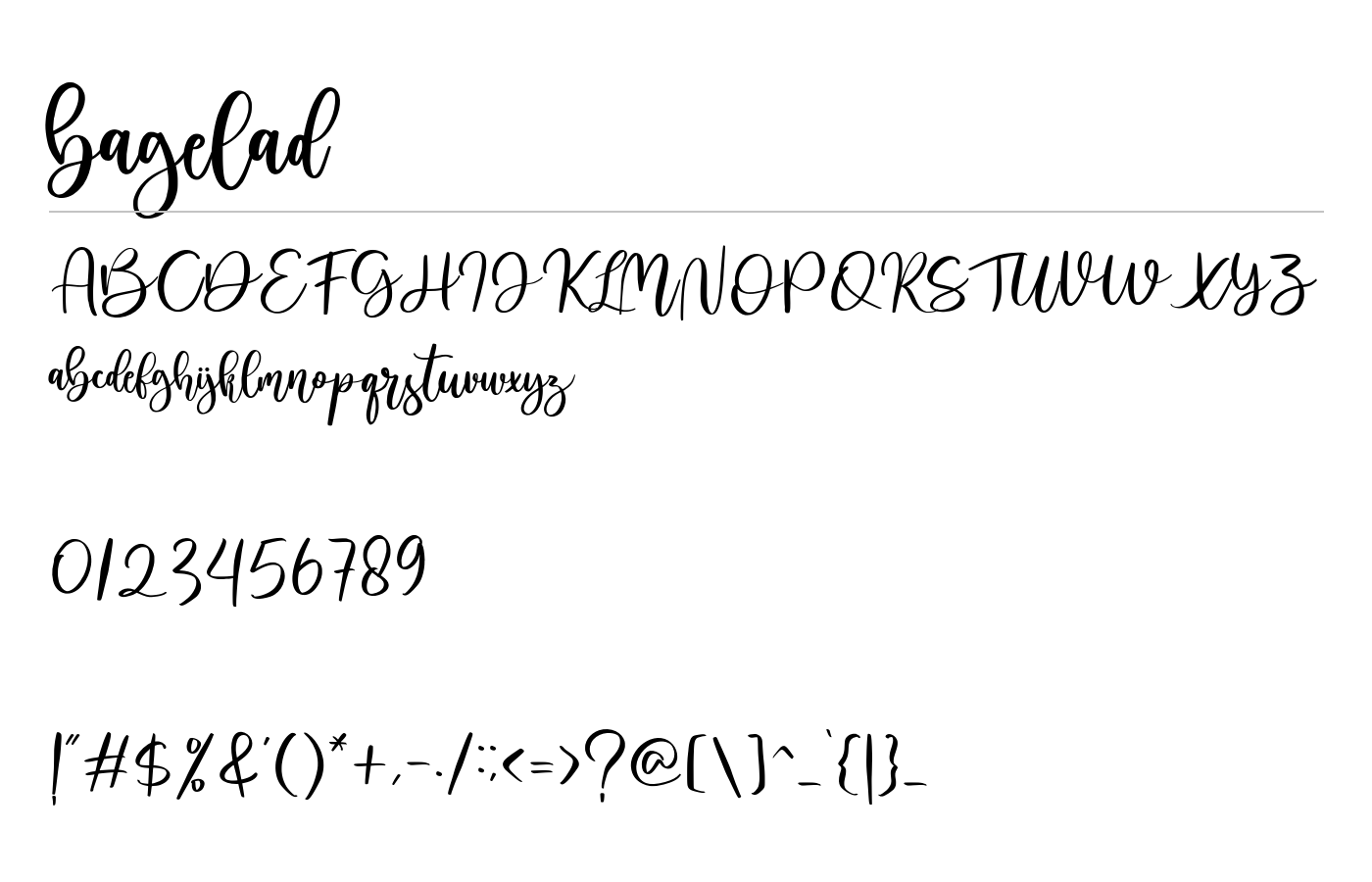
Bagelad is a playful and elegant script font featuring a lively, handwritten style with smooth, flowing strokes and a natural, casual flair. Its varied stroke weight and distinctive letterforms create a warm, inviting personality, perfect for branding, invitations, and creative projects that need a personal, friendly touch. This font works well in logos, packaging, and headlines where a stylish and approachable look is desired.
bagelad Font
About bagelad Font
| Font family | bagelad Font |